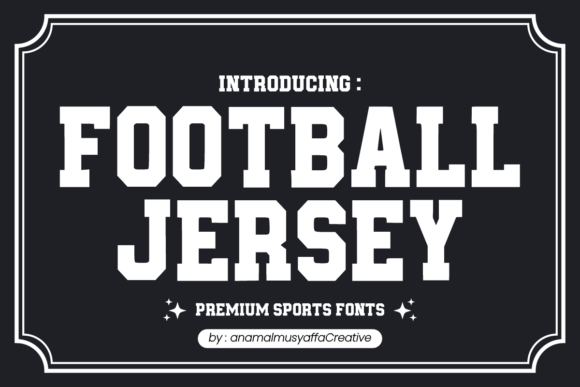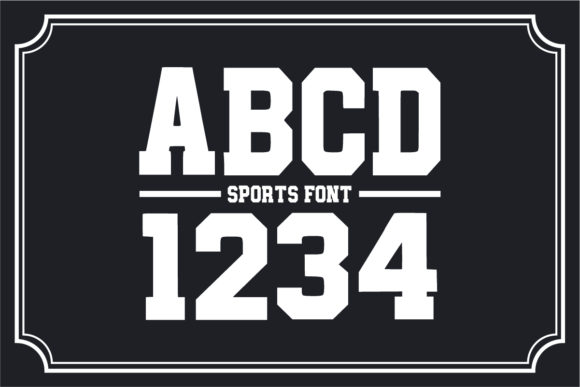
Football Jersey Font
Football Jersey typeface is a classic and modern sports font consisting of only uppercase letters.
Each character is strong and charming, making it easy to recognize and apply. Perfect for sports-themed craft designs, sublimated t-shirts, mugs, tote bags, animations, comic titles, and more. Let your imagination run wild!